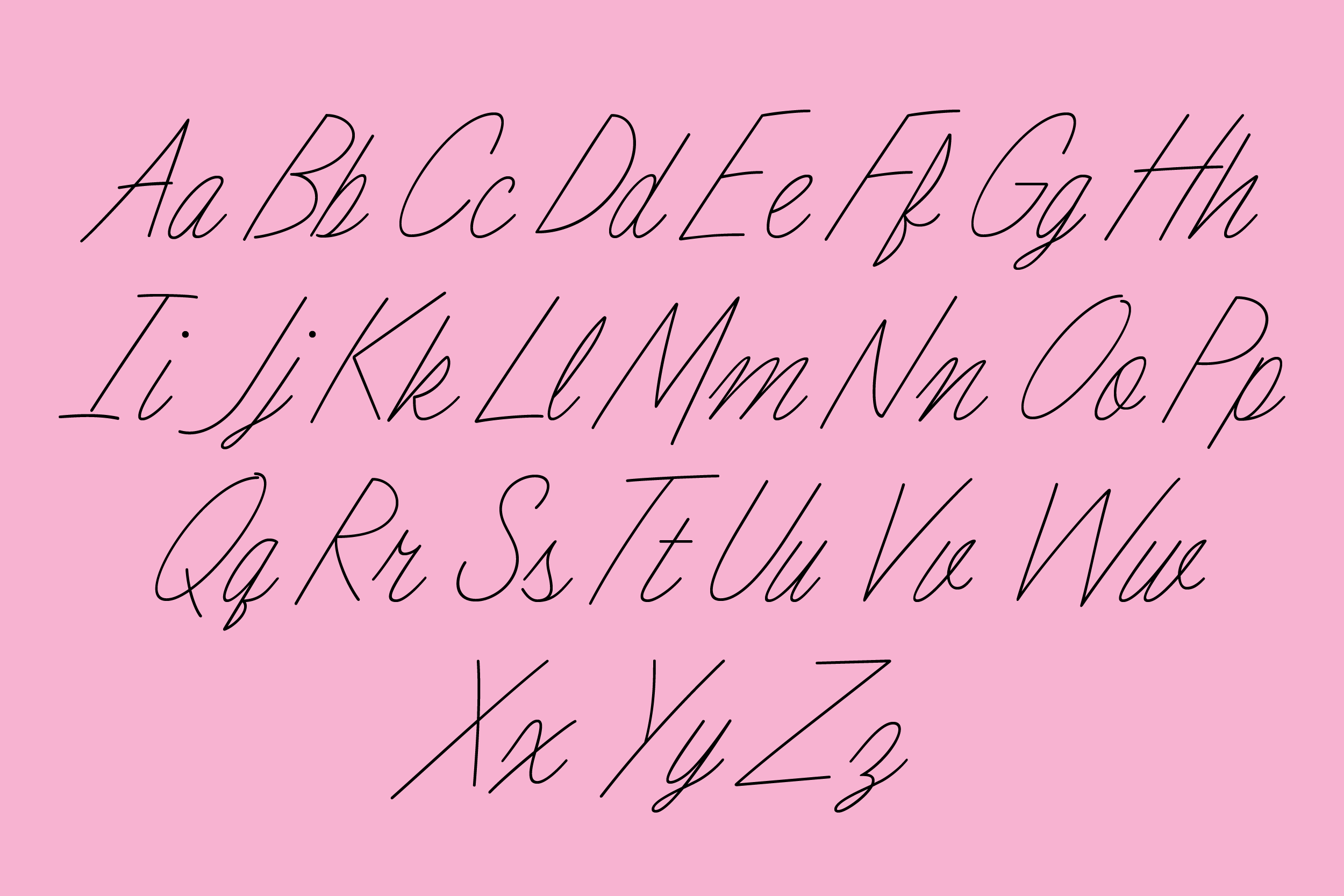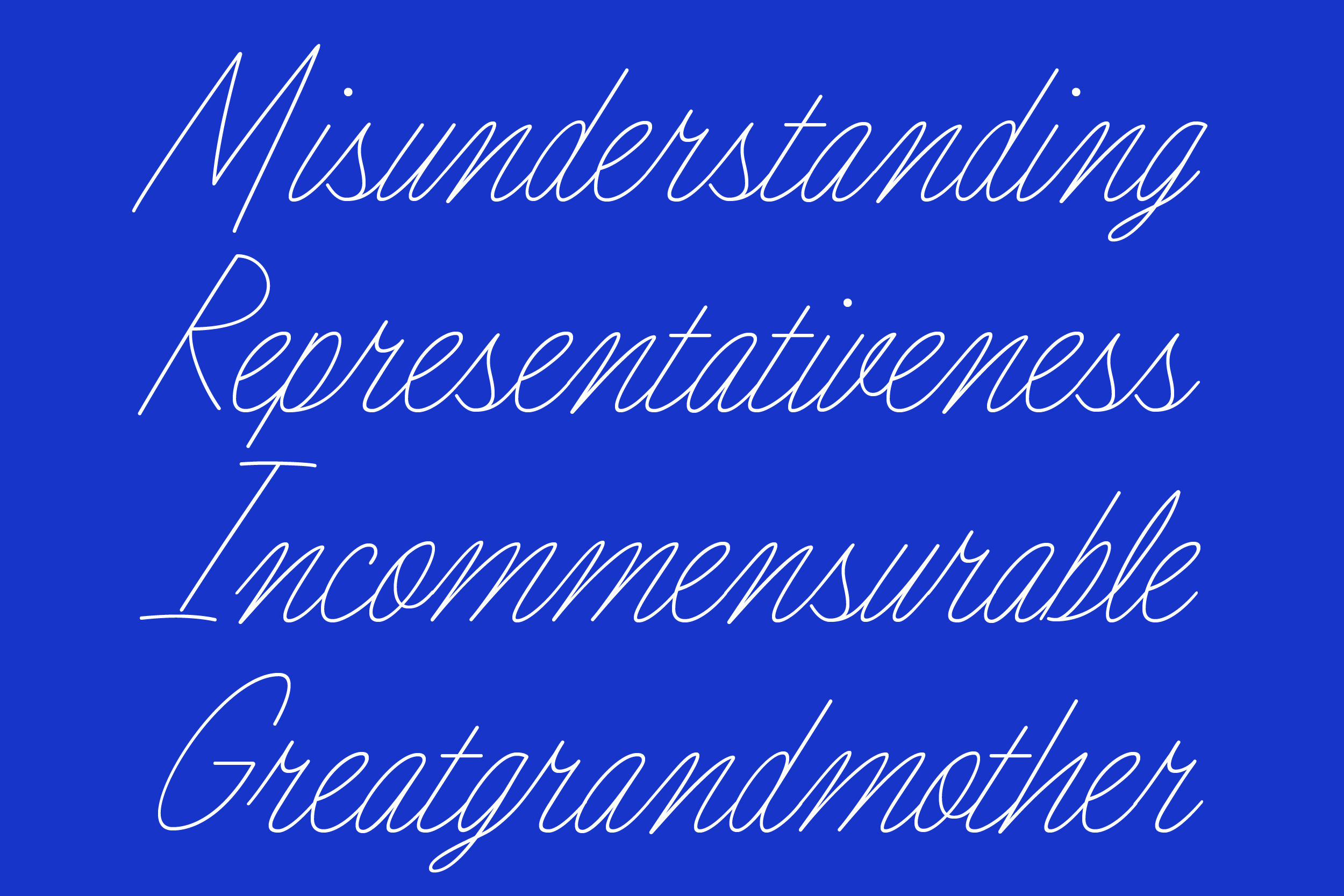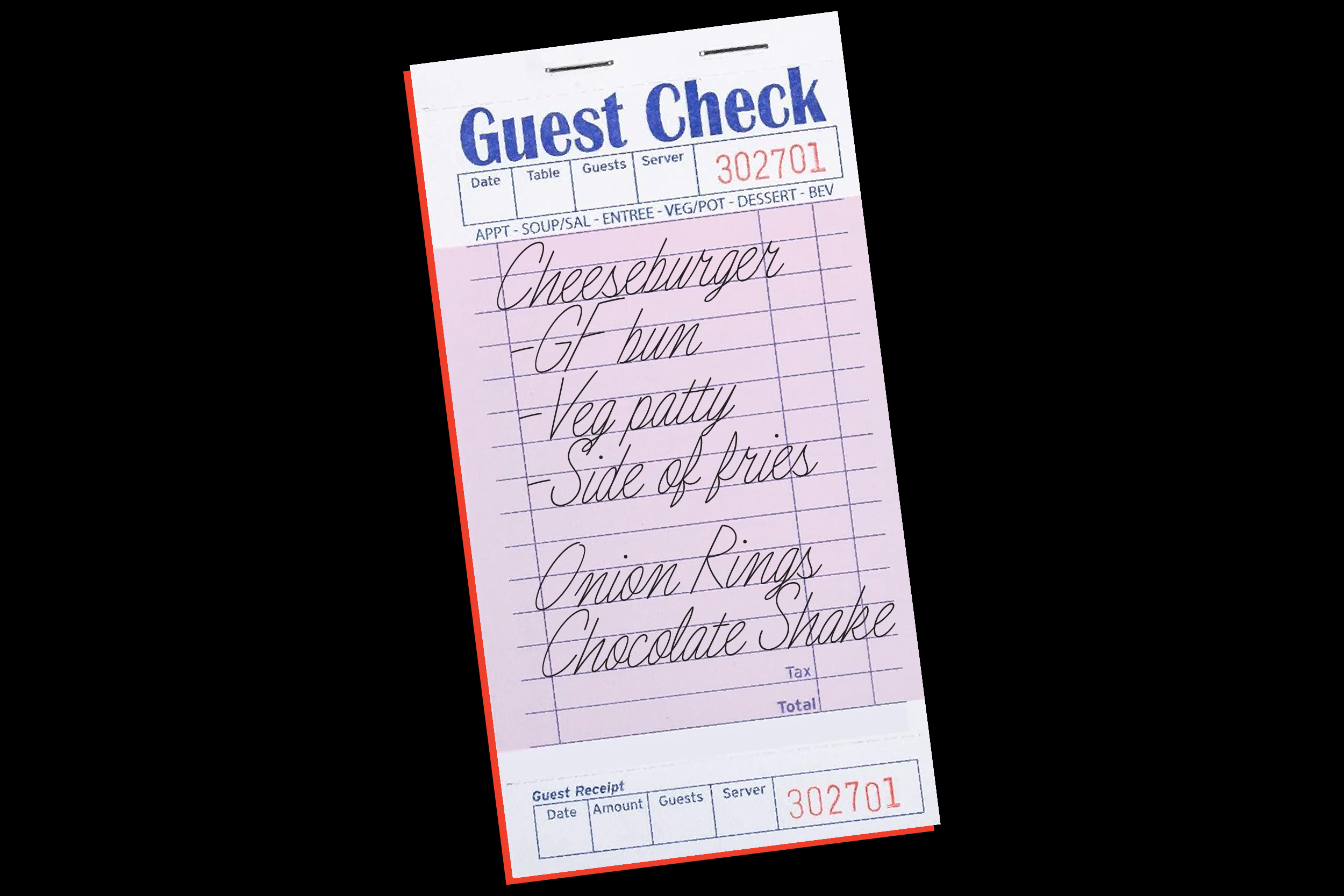
Stockinette V1
This is leaning at approximately a 30 degree angle! No kidding!
Stockinette is from the original Fifty Two Fonts project. It's currently still a WIP but it will be officially released very soon!
Stockinette is a mid-century script typeface. The original source material was found in a knitting magazine from the 50s! It is meant to imitate handwriting but in a more simplified, typographic style.
Stockinette is currently in-progress! This V1 has a basic latin set (including numbers and punctuation). It will soon have expanded language support and some extra features! Your purchase will include any future updates for free!